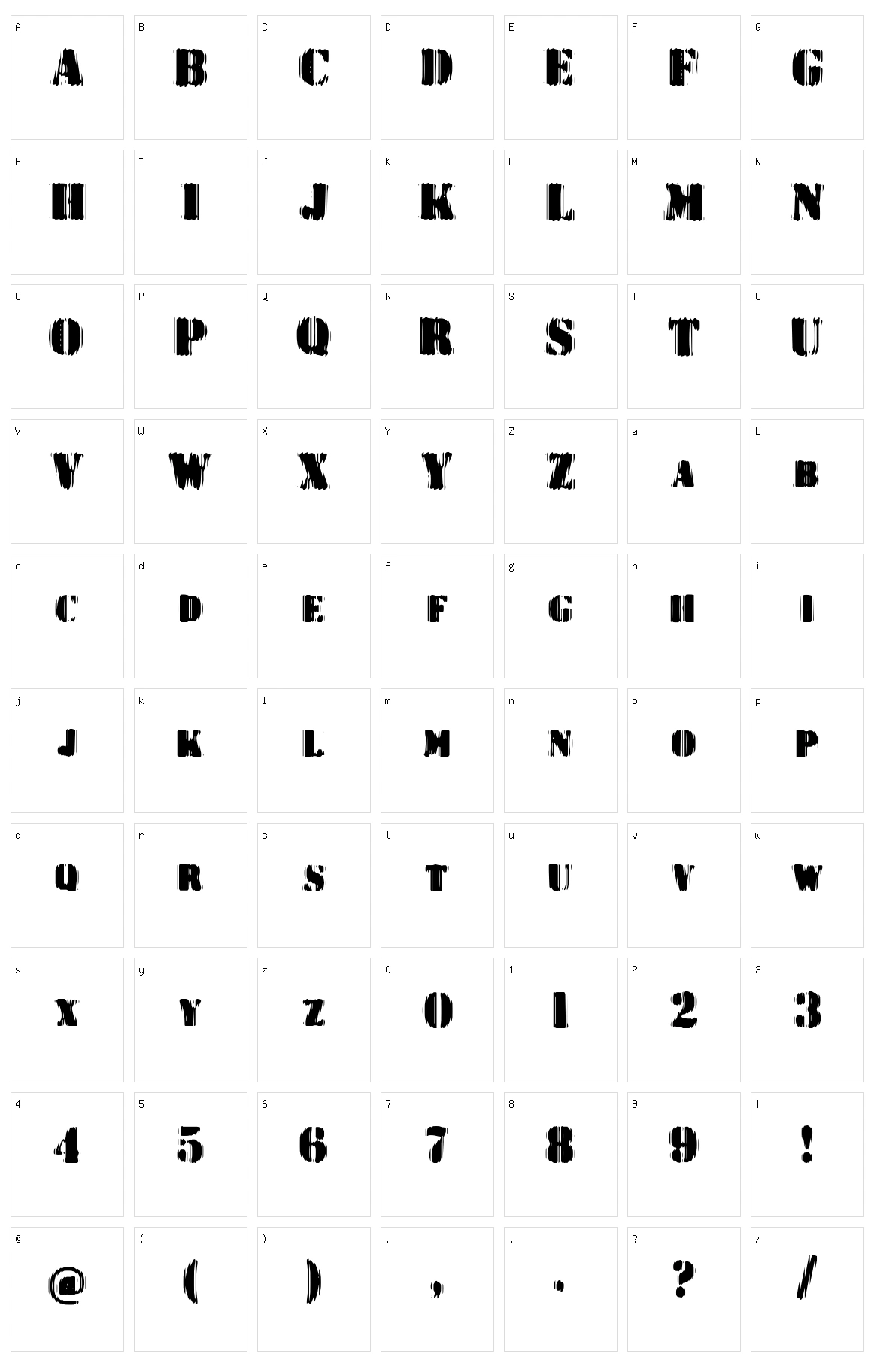
The free font Dr. Enoksen is carefully designed by Mr.Fisk Fonts, showcasing a thoughtful balance of creativity and usability and falls under the Distorted font style. When you download the ZIP file, it contains only 31.34 KB of font files, making it lightweight and quick to download. Please review the license details below to understand permitted usage and distribution rights. If license information is not available, we recommend using this font for personal projects only or contacting the author directly for commercial usage permissions.